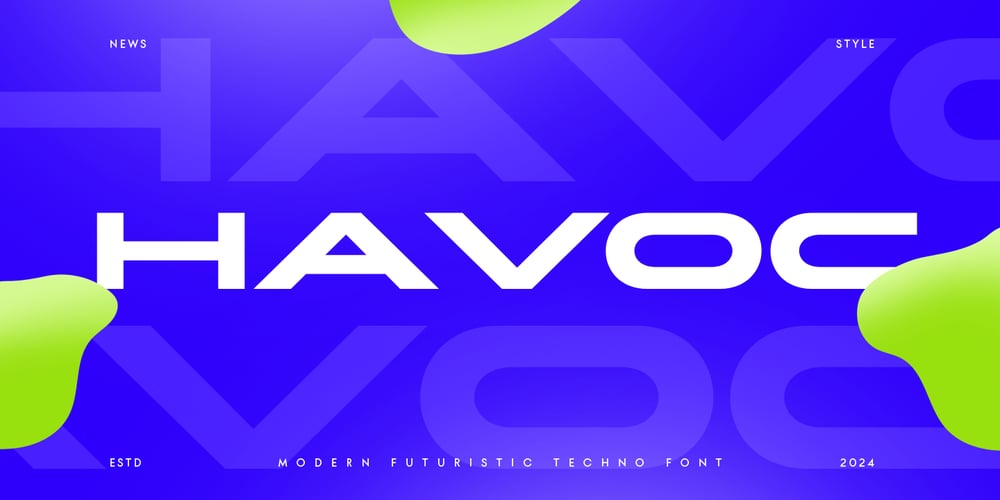
Havoc Font Family was designed by Zamroni Hamzah and published by Sensatype Studio. Havoc contains 1 styles and family package options. HAVOC Neo Brutalism Futuristic Techno Font is a Corporate well-balanced modern font with a minimalist, unique, and iconic sans serif, font that you can combine to get any variations and unique shapes easily just in seconds with choose alternates of them. It is a sans serif font with minimalist style that perfect for branding projects, logo, poster designs, social media posts, advertisements, product packaging, product designs, label, photography, watermark, invitation, stationery, and any projects, it makes with a high level of legibility.What’s Included: HAVOC font All Uppercase Characters set A-Z Numerals & Punctuation Accented Characters (West Europe) Works on PC & Mac Recommended using Adobe Illustrator or Adobe Photoshop. Wish you enjoy our font. ๐